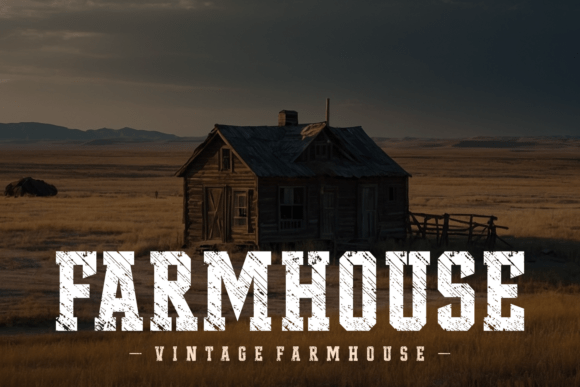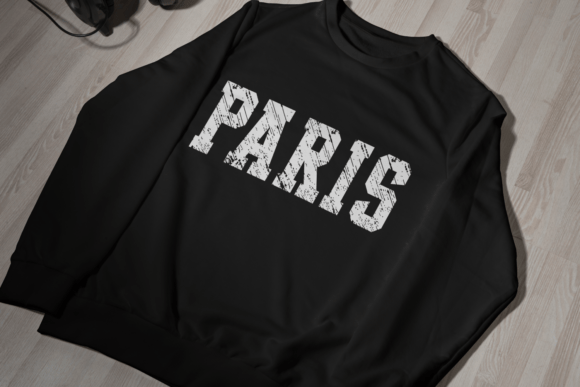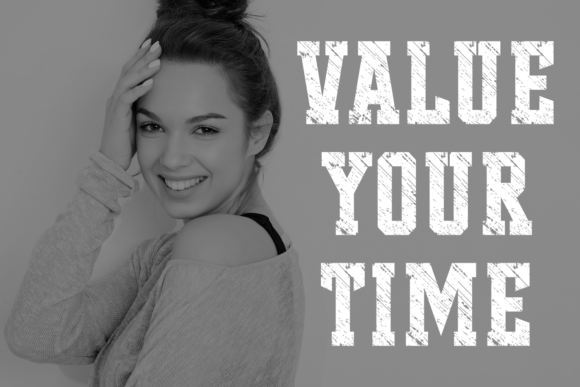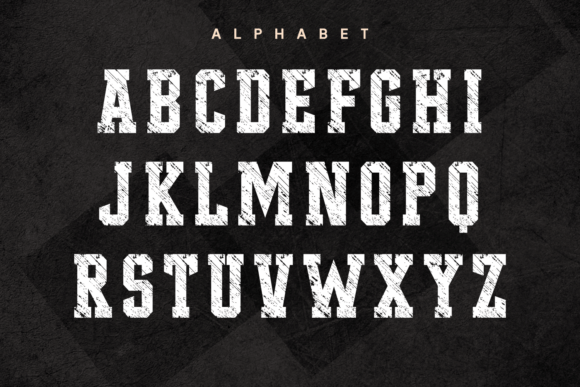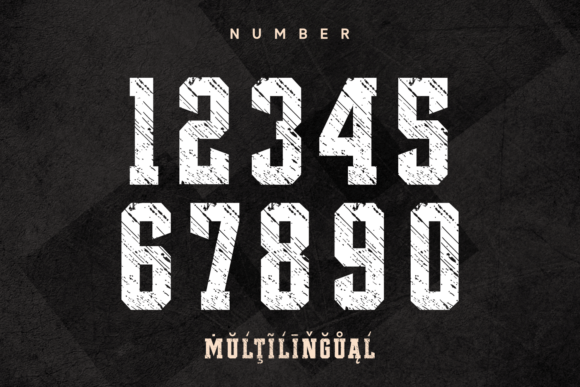
Introduction to Original Vintage Font
As you sit in your cozy studio, surrounded by half-finished projects and scattered design elements, you finally stumble upon that elusive idea that sparks a new creative project. It’s the moment when everything falls into place, and you know exactly which design resource to use – one that’s timeless, elegant, and evocative of a bygone era. This is where the Original Vintage Font comes in, a Slab Serif font that will transport your audience to a world of nostalgia and charm.
With its unique blend of thick and grunge styles, this font is a treasure trove of inspiration, drawing from the rich heritage of old-time typesetting. Whether you’re designing a book cover, a t-shirt, or a magazine layout, the Original Vintage Font is the perfect companion to add that extra layer of depth and sophistication to your work.
Key Features of Original Vintage Font
- Unique distressed texture and design elements, perfect for creative projects that require a vintage aesthetic.
- Perfect for use in graphic design, digital art, and other creative projects that require a unique and nostalgic look.
Honest Review: Original Vintage Font
I recently had the chance to work with the Original Vintage Font, and I must say, it’s a fantastic addition to any creative project. The high quality of the font is immediately apparent, with smooth lines and a beautiful texture that adds a touch of elegance to any design.
One of the standout features of this font is its versatility. It’s perfect for a variety of design projects, from wedding invitations to vintage-inspired branding. The transparent background makes it easy to layer over other design elements, giving you complete control over the final look.
– High-quality design with a unique texture
– Versatile and suitable for a range of creative projects
– Easy to use with a transparent background
– May not be suitable for modern or minimalist designs
– Some users may find the texture overwhelming in certain contexts
– Not ideal for small font sizes due to the intricate details
Overall, I’m impressed with the Original Vintage Font. It’s a valuable design resource that can add a touch of sophistication to any project. If you’re looking for a high-quality font with a unique character, I’d definitely recommend giving it a try.
Common Use Cases and Tips
The Original Vintage Font is perfect for creative projects that require a unique and nostalgic touch. Use it for:
- Marketing materials like brochures and flyers.
- Editorial content like magazine articles and book titles.
- Branding elements like logos and business cards.
For optimal results, experiment with different font sizes, colors, and combinations to find the perfect fit for your project.